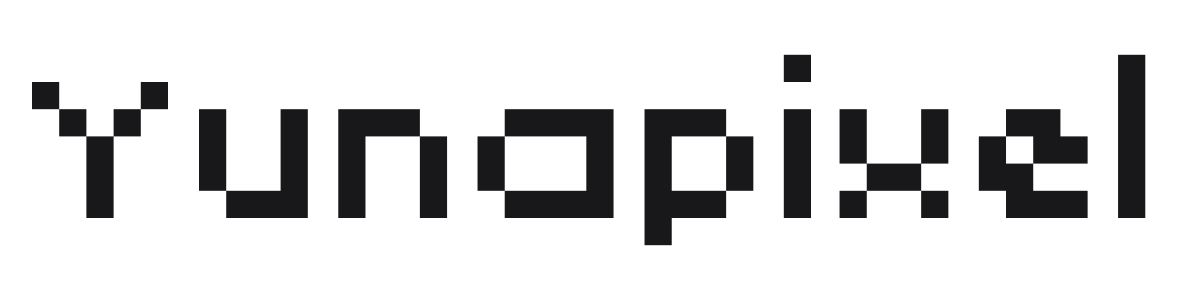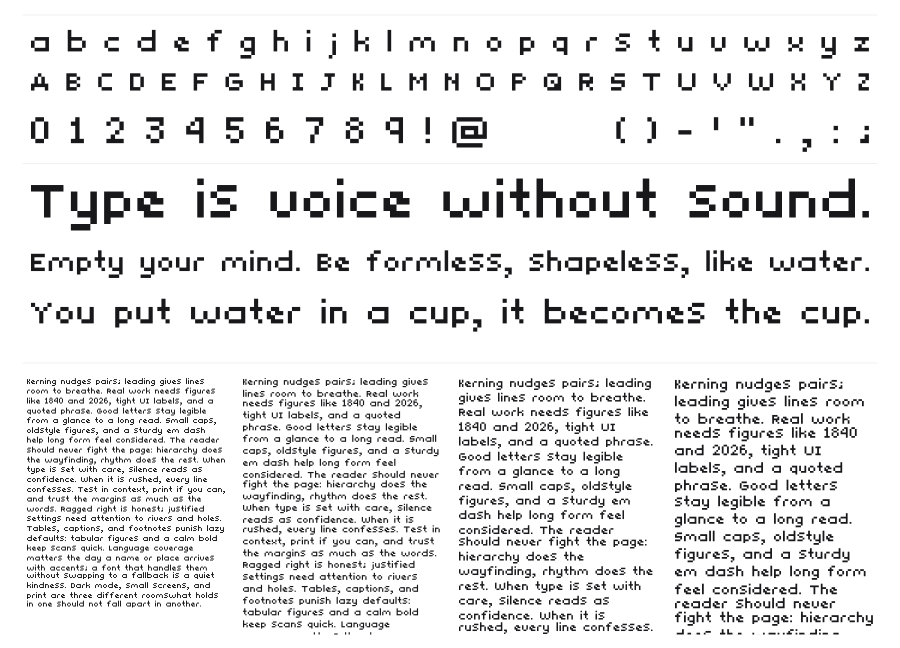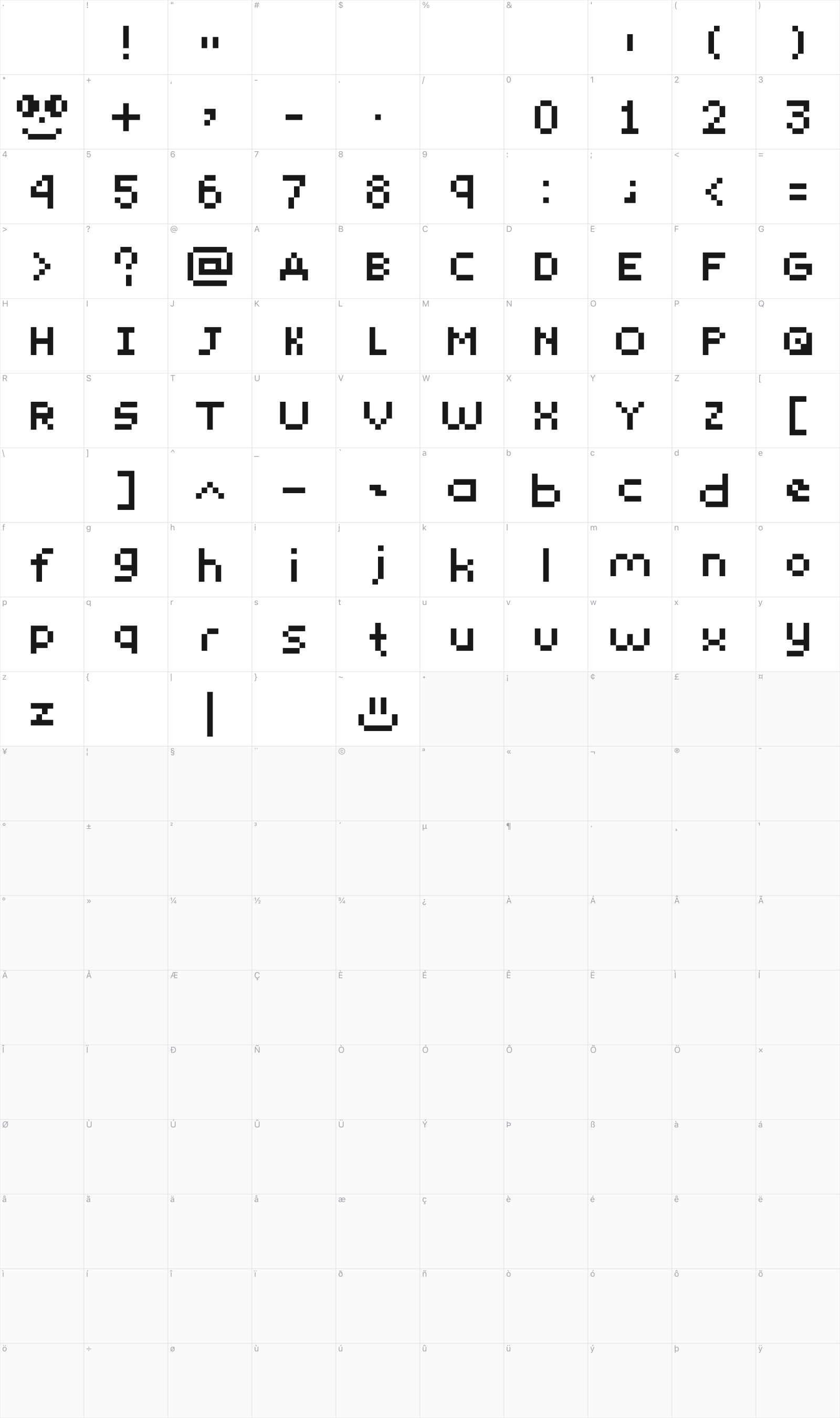
Yunapixel
Yunapixel is a bold bitmap font built squarely on an 8-bit pixel grid. Every character is rendered in chunky square pixel blocks with zero stroke contrast, channeling the look of early home computer and arcade game screens. It brings instant retro digital energy to game interfaces, music projects, and lo-fi branding.